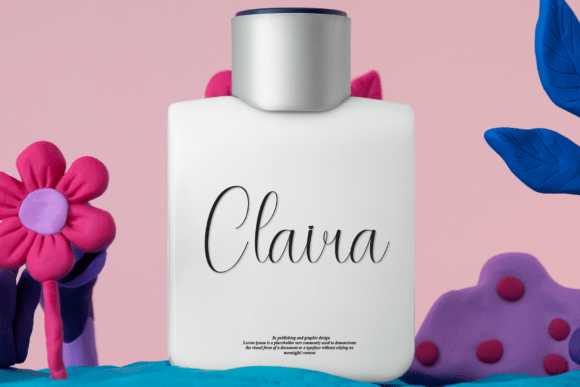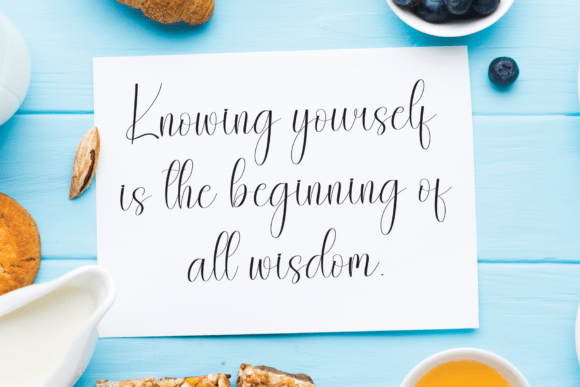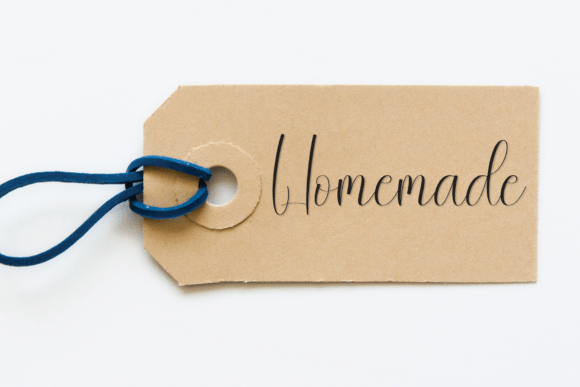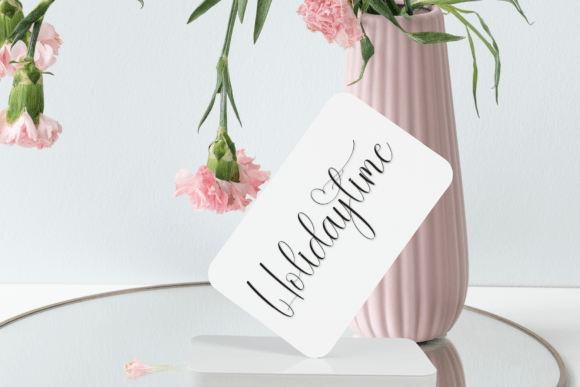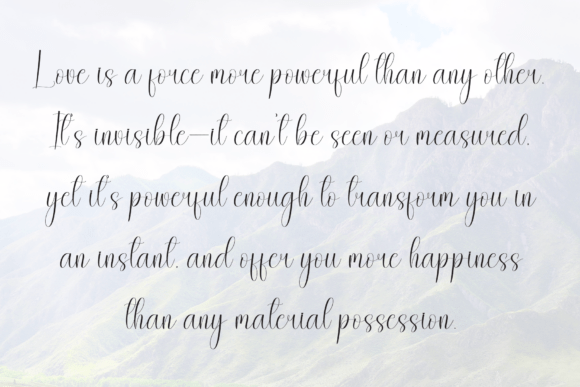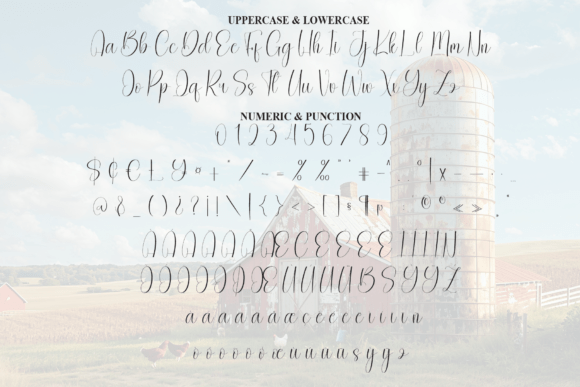
Discover the Charm of Farmhouse Font: A Rustic yet Elegant Handwritten Script
Are you a designer or crafter looking for a font that captures the essence of rustic elegance? Look no further than the Farmhouse Font. This beautiful, handwritten script is perfect for creating homestead-inspired branding, organic food packaging, country wedding stationery, and lifestyle photography watermarks. In this article, we’ll dive into the unique characteristics of the Farmhouse Font and explore its uses in various design projects.
The Characteristics of Farmhouse Font
Farmhouse Font is a graceful and rhythmic handwritten script that exudes a sense of natural elegance. Its defining feature is the natural, slanted axis with fluid, continuous strokes that mimic fine-point ink lettering. This gives the font a smooth, organic feel that’s reminiscent of handwritten lettering. The expansive, airy flourishes on the ascenders and descenders add a touch of artisanal charm, creating a sense of movement and fluidity.
The font’s rustic yet refined aesthetic makes it perfect for designs that require a touch of country charm. The slanted axis and flowing strokes evoke a sense of nostalgia, while the flourishes add a level of sophistication. Whether you’re designing a logo, packaging, or wedding stationery, Farmhouse Font is a versatile choice that can add a touch of elegance to your project.
Uses of Farmhouse Font
Farmhouse Font is a premier choice for a variety of design projects, including:
• Homestead-inspired branding: If you’re creating a brand identity for a farm, homestead, or rural business, Farmhouse Font is an excellent choice. Its rustic yet elegant aesthetic perfectly captures the essence of country living.
• Organic food packaging: For food packaging that requires a natural, earthy feel, Farmhouse Font is a great option. Its smooth, flowing strokes and flourishes evoke a sense of freshness and wholesomeness.
• Country wedding stationery: If you’re designing wedding stationery, such as invitations, save-the-dates, or thank-you cards, Farmhouse Font is a beautiful choice. Its elegant, cursive script adds a touch of romance and sophistication to any design.
• Lifestyle photography watermarks: For lifestyle photographers who want to add a touch of elegance to their watermarks, Farmhouse Font is an excellent option. Its subtle, cursive script won’t overpower your images, while still adding a level of professionalism.
Farmhouse Font is a stunning handwritten script that captures the essence of rustic elegance. Its natural, slanted axis and fluid strokes evoke a sense of fine-point ink lettering, while its expansive flourishes add a touch of artisanal charm. Whether you’re designing homestead-inspired branding, organic food packaging, country wedding stationery, or lifestyle photography watermarks, Farmhouse Font is a versatile choice that can add a touch of sophistication to your project. With its unique characteristics and range of uses, Farmhouse Font is a font that every designer and crafter should have in their toolkit.